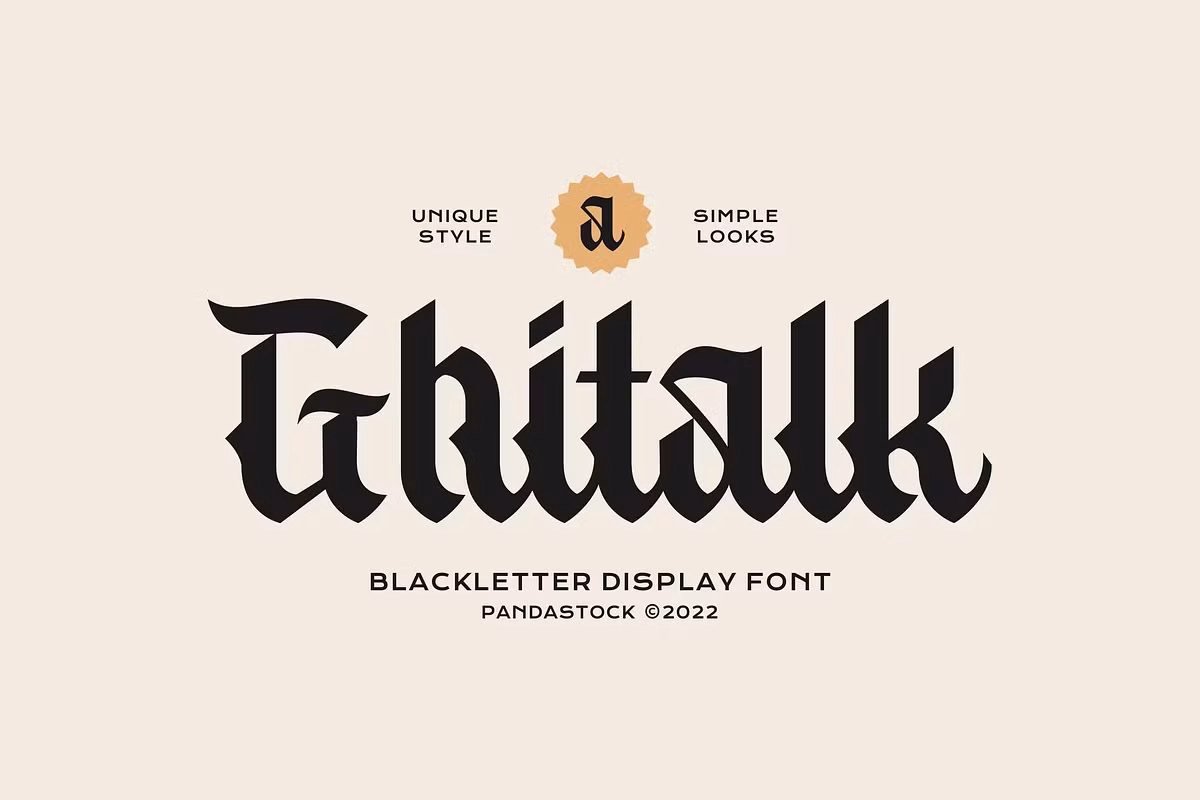
Ghitalk - Classic Lettering Font Free Download is a stylish, vintage-inspired lettering font that blends timeless elegance with modern appeal. With its bold, smooth strokes and classic letterforms, this font is perfect for creating vintage logos, retro branding, signage, posters, and any project that requires a classic, handcrafted look. It evokes a sense of tradition while maintaining a fresh, contemporary vibe.
Using the Ghitalk - Classic Lettering Font Free Download adds sophistication and charm to your designs. Whether you’re crafting a retro logo, designing promotional materials for a nostalgic event, or creating a stylish product label, this font offers a perfect balance of timeless beauty and modern flair.